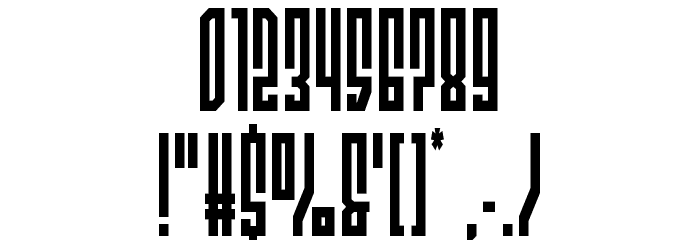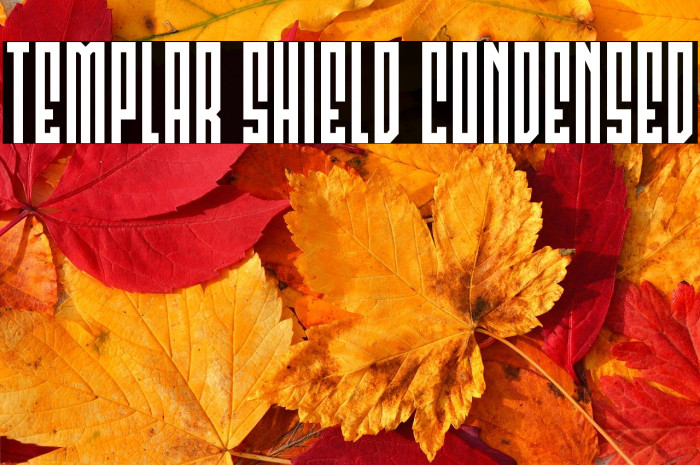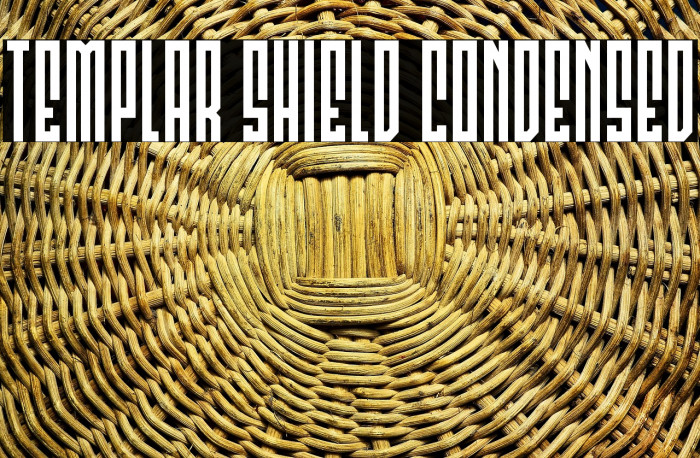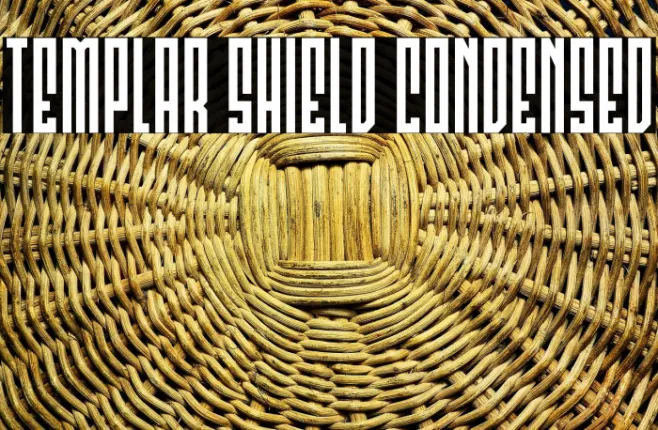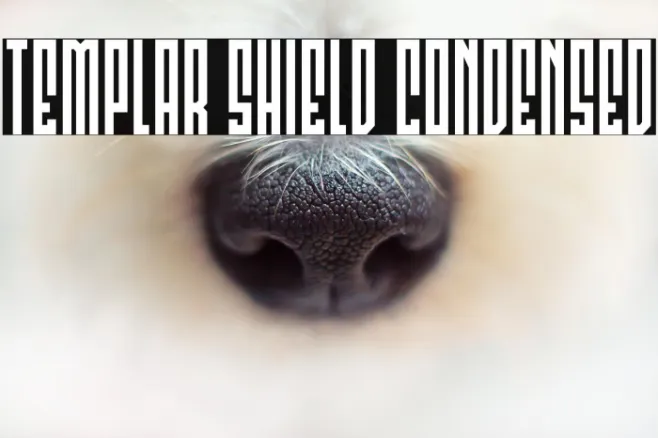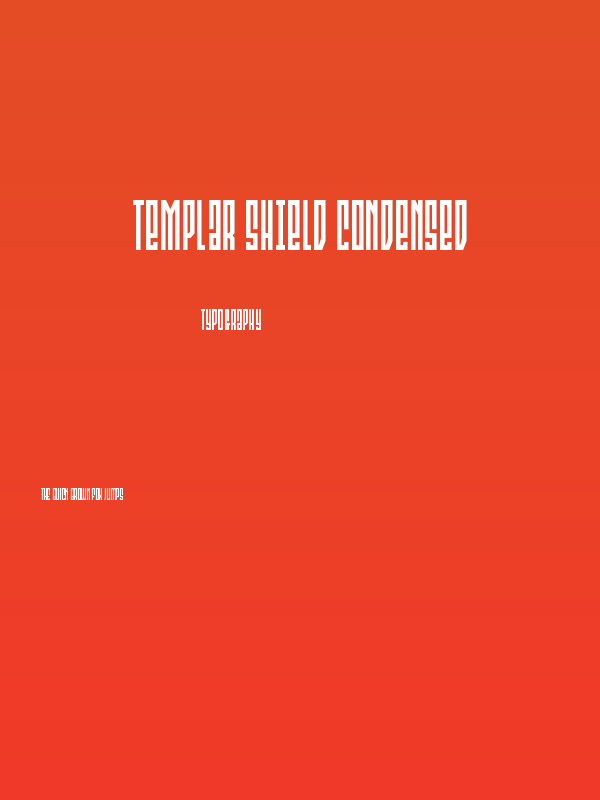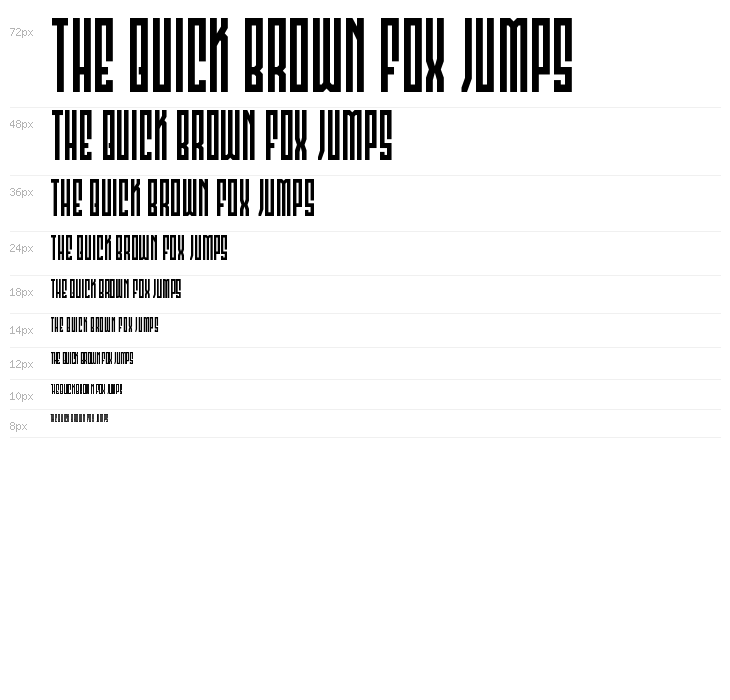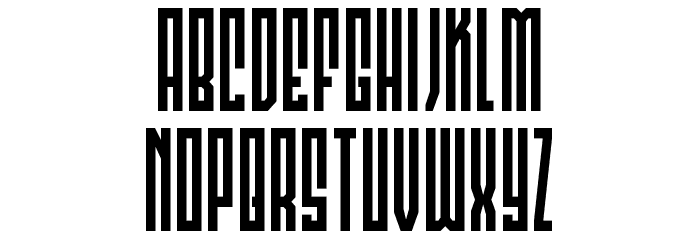
Templar Shield Condensed Font
Templar Shield Condensed Description
This font features a bold and condensed style with a strong geometric structure. The characters are tall and narrow, creating a striking and impactful appearance. The uppercase letters have a uniform height, while the lowercase letters maintain a similar condensed form. The numerals are consistent with the overall design, providing a cohesive look. Special characters are included, maintaining the same bold and condensed aesthetic. The font's sharp angles and clean lines give it a modern and authoritative feel, suitable for making a strong visual statement.